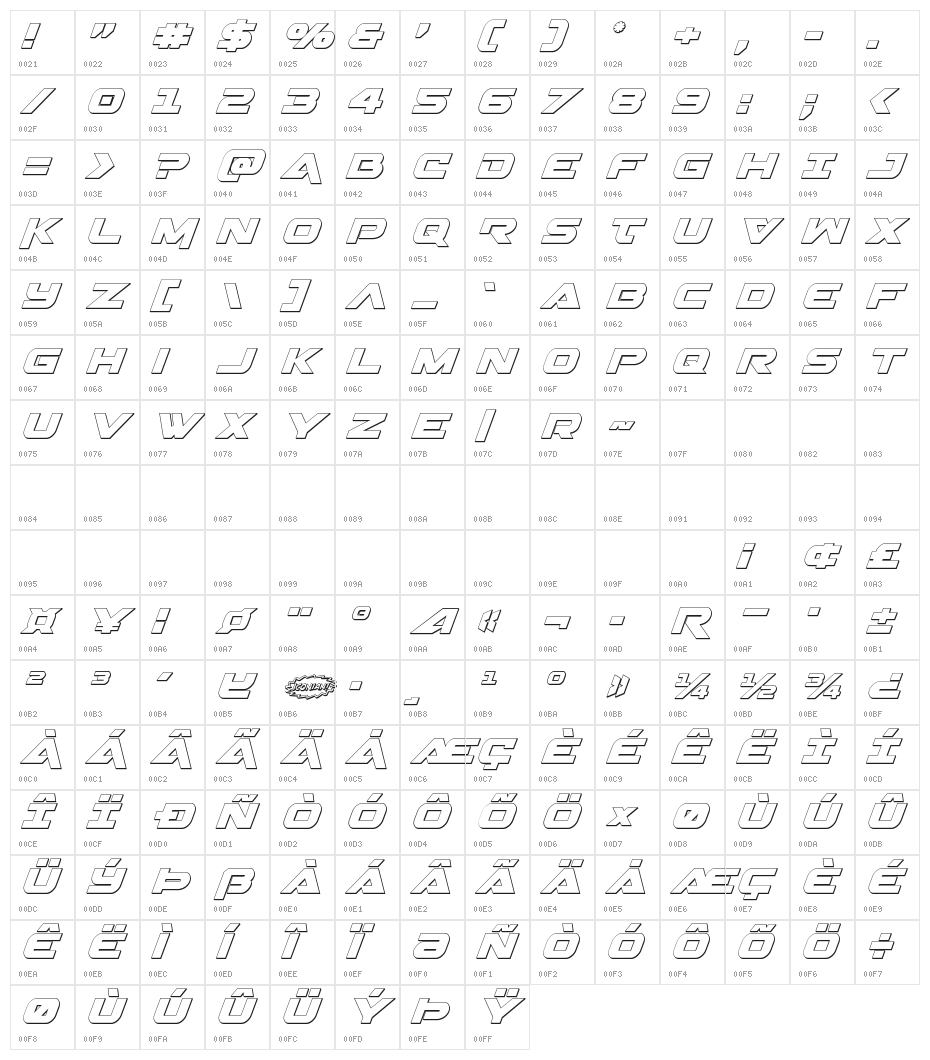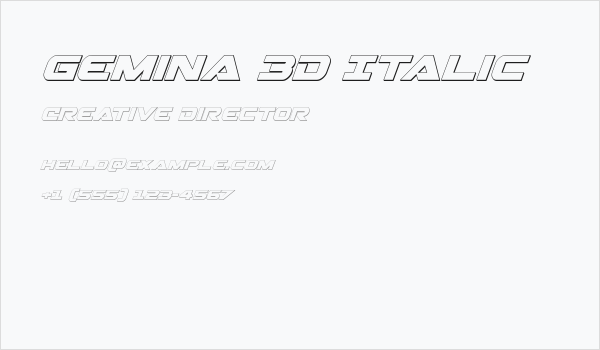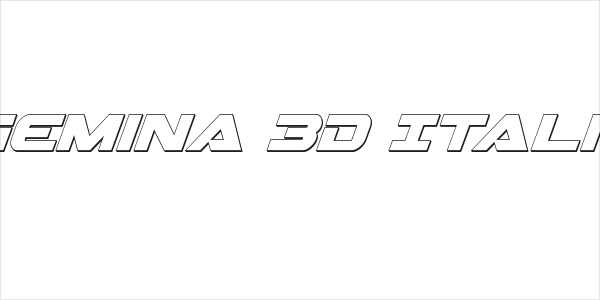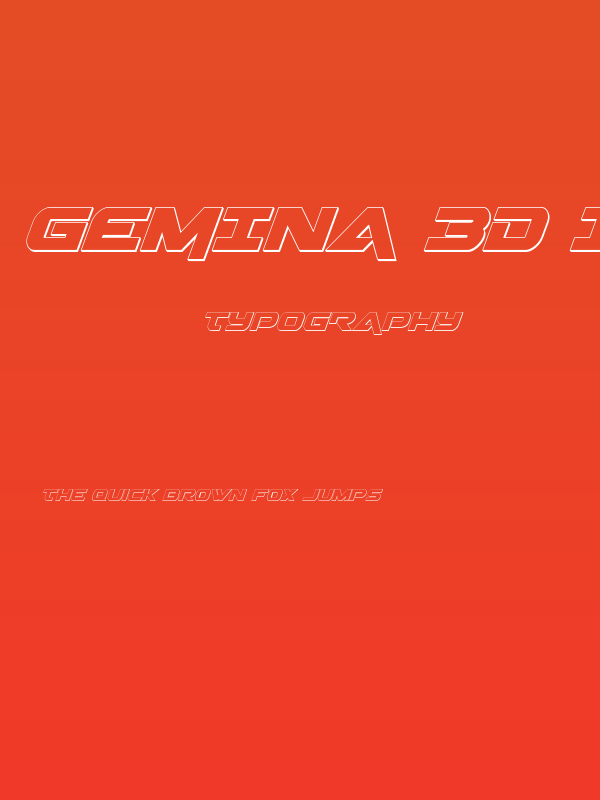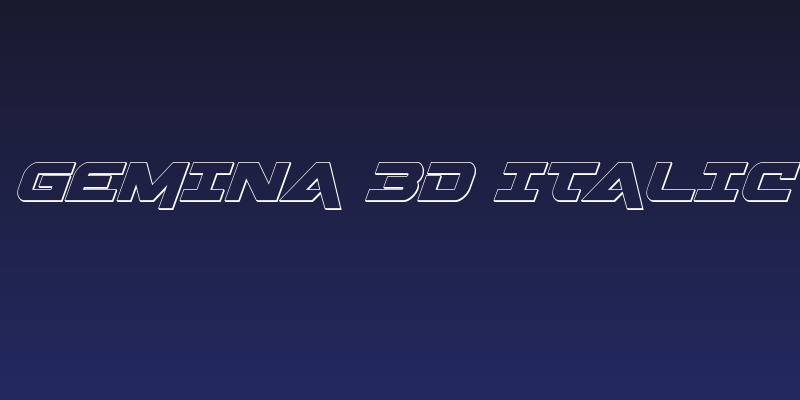
Gemina 3D Italic Font
Gemina 3D Italic Description
This font features a bold, three-dimensional design with an italic slant, giving it a dynamic and futuristic appearance. The characters are outlined, creating a hollow effect that enhances the 3D illusion. The uppercase letters are angular and geometric, with sharp edges and a consistent slant. The numerals and special characters maintain this style, ensuring uniformity across all glyphs. The font's unique structure makes it stand out, ideal for projects that require a modern and eye-catching typeface. Its boldness and italic style contribute to its striking visual impact, making it suitable for attention-grabbing designs.
| Proposed Projects | Ideal for sci-fi themed posters, video game titles, and futuristic branding projects. |